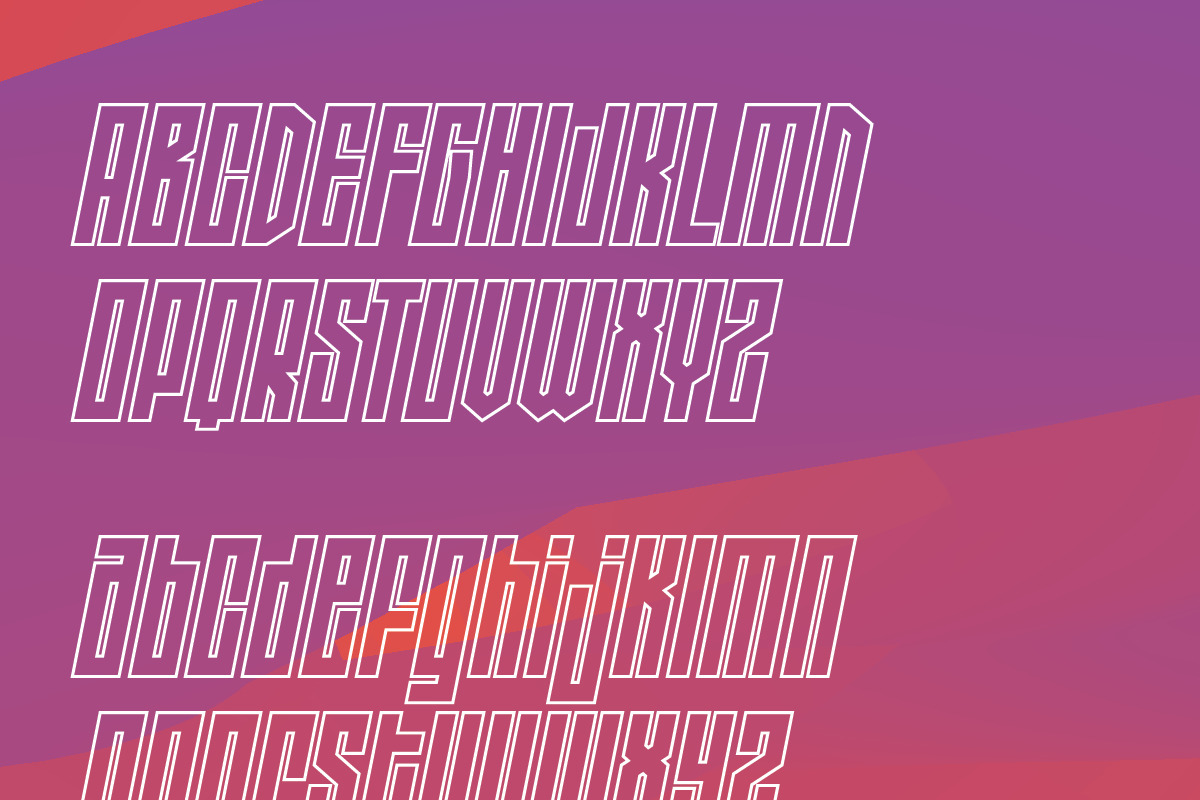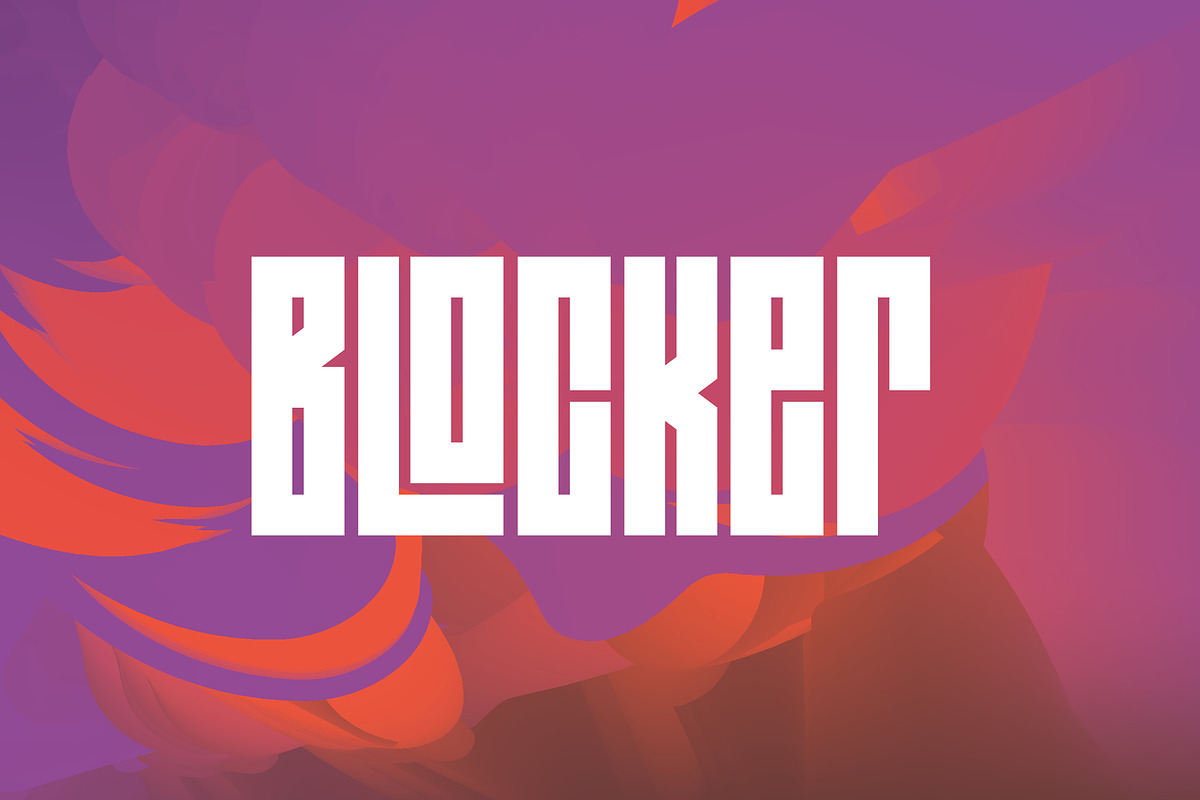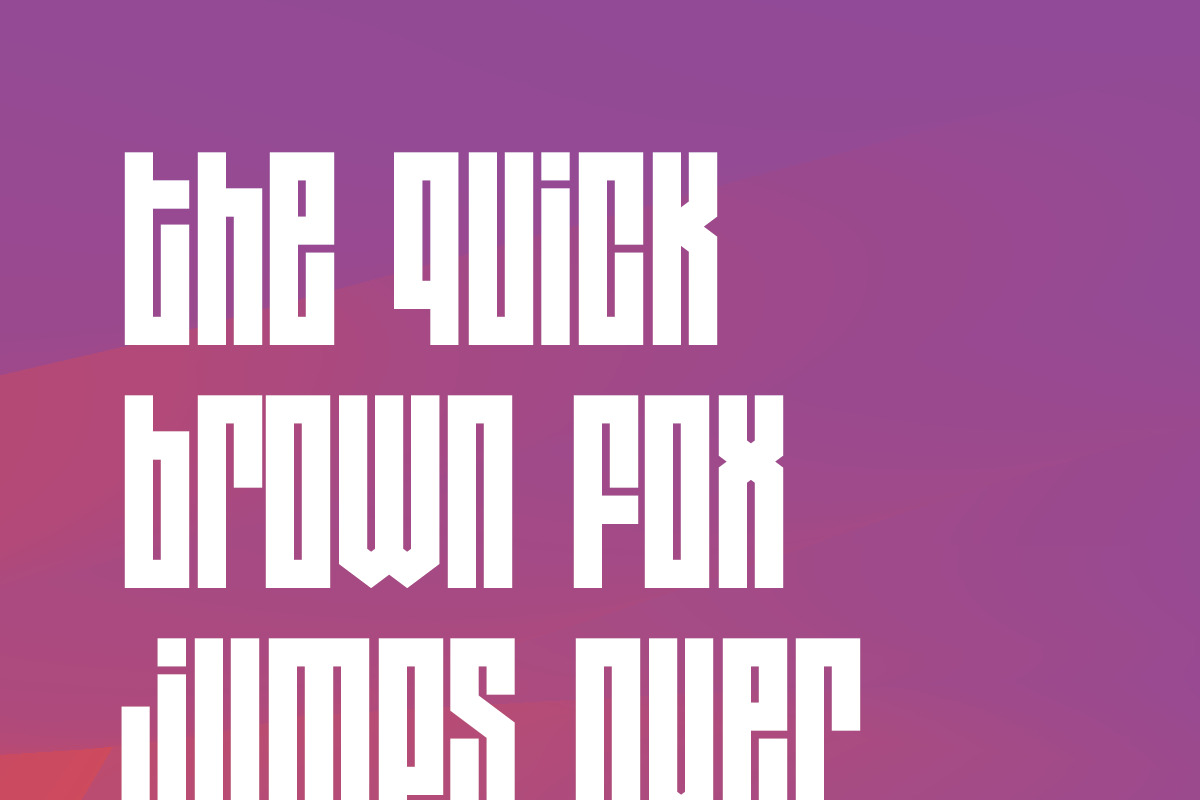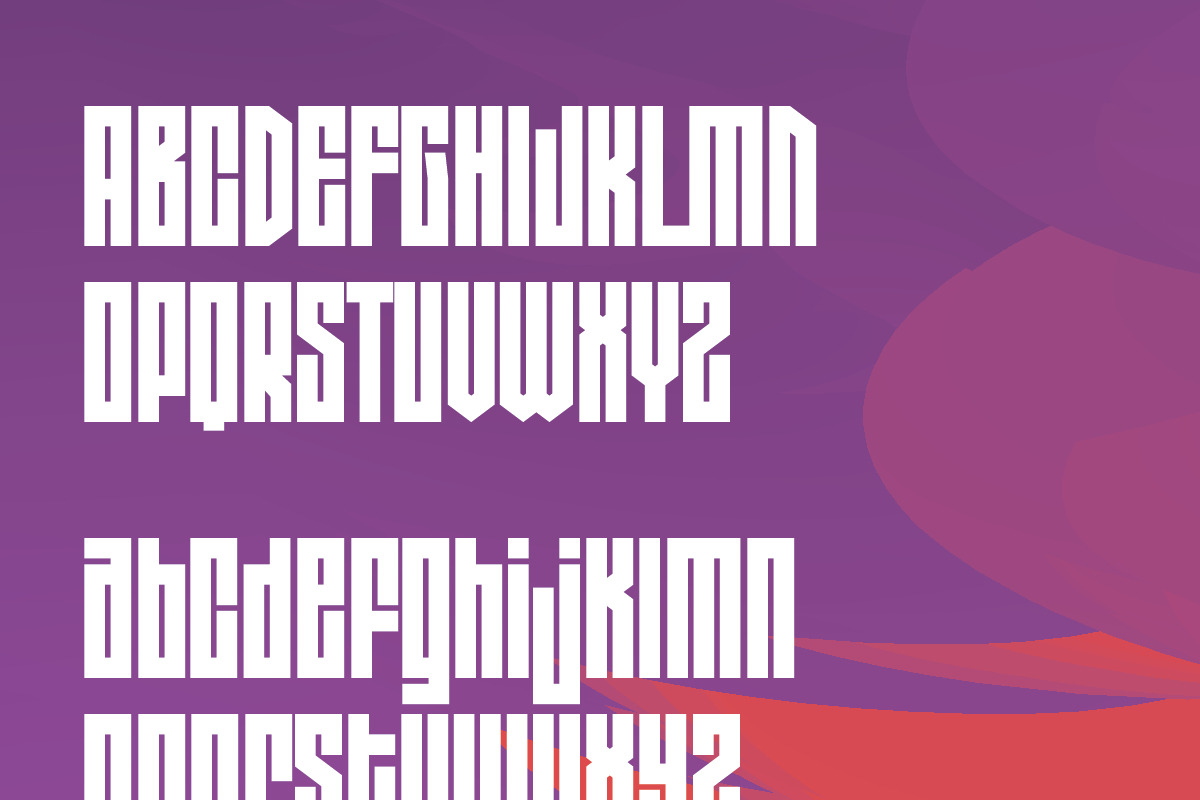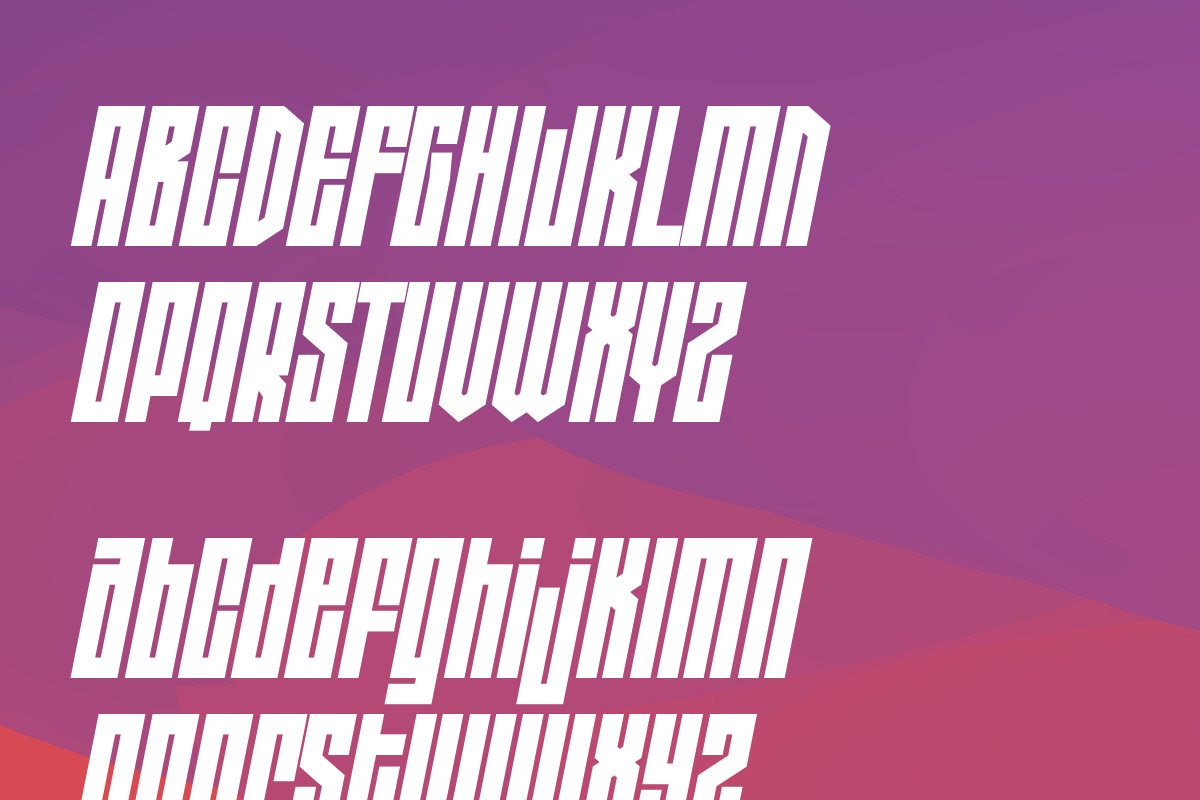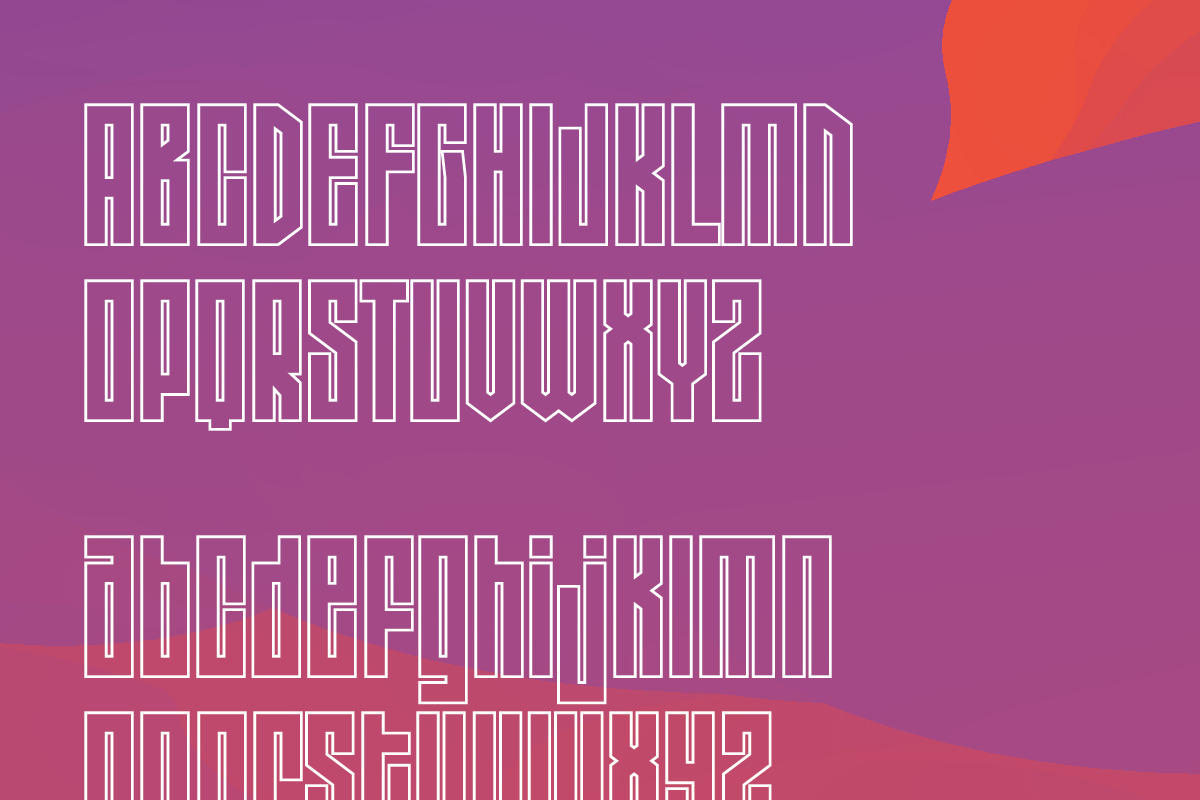
Blocker
Blocker is a super geometric retro decorative display font ideal for packaging, posters, logos, motion graphics and more. Available in 4 weights